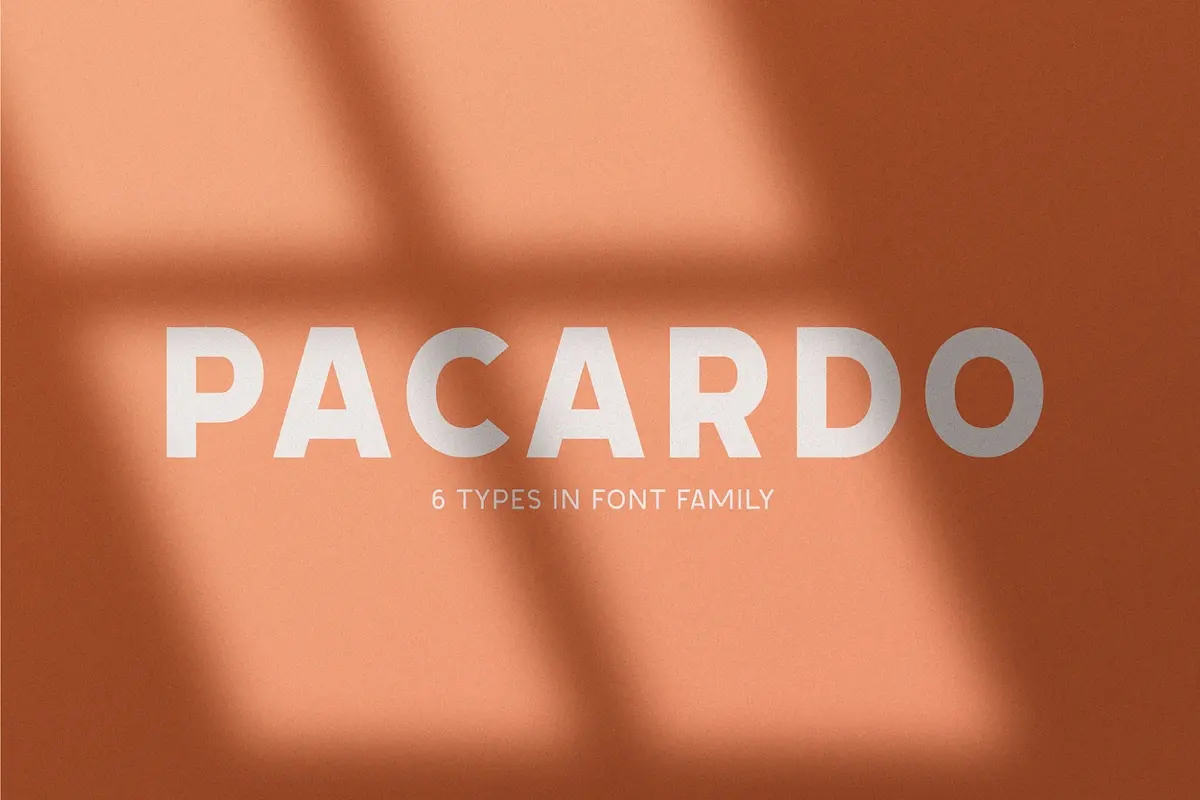
Bring clarity and confidence to your designs with Pacardo Sans Serif Font Free Download — a clean, modern typeface built for professional use. With its balanced proportions, subtle geometry, and versatile style, Pacardo is perfect for branding, websites, business presentations, product labels, and editorial design.
As a full font family, Pacardo offers multiple weights and styles, making it ideal for everything from headlines to body text. It’s easy to read, minimal in design, and rich in impact. It includes uppercase and lowercase letters, punctuation, numerals, and multilingual support — providing everything you need for global visual communication.